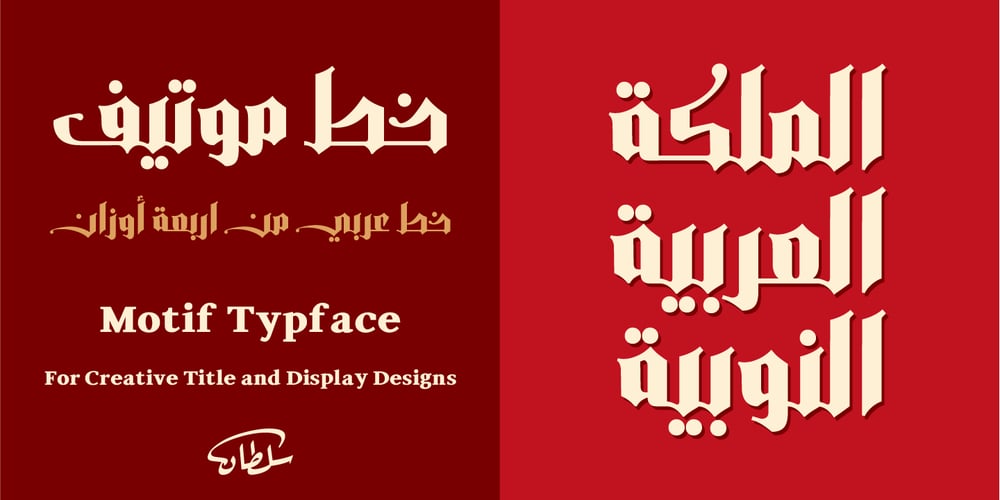
SF Motif Font Family was designed by Sultan Maqtari and published by Sultan Fonts. SF Motif contains 4 styles and family package options. Motif Font: A Creative Typeface for Captivating Titles and DisplaysElevate your designs with Motif, a versatile headline font that exudes sophistication and style. Featuring four distinctive weights – Light, Regular, Bold, and Black – Motif empowers you to craft impactful titles and presentations that leave a lasting impression.Motif’s Key Features:Four weights to suit all your heading and display needs.Modern and elegant design that complements a wide range of aesthetics.Clear and legible typeface that ensures your headlines stand out.Compatible with all major design systems and software.Easy to use and optimized for efficient workflow.Ideal for:Main headlinesSubheadingsPresentationsPostersPackagingDigital designsPrint materialsMotif: The Creative Font That Elevates Your DesignsGet Motif today and take your designs to the next level!